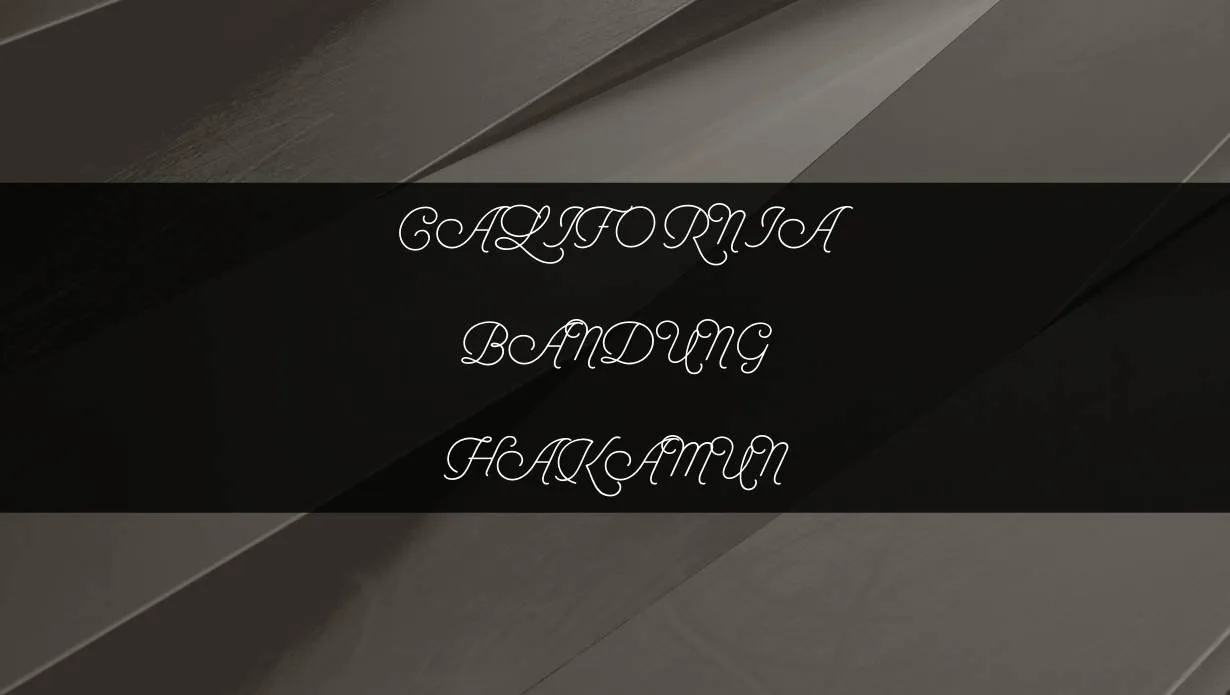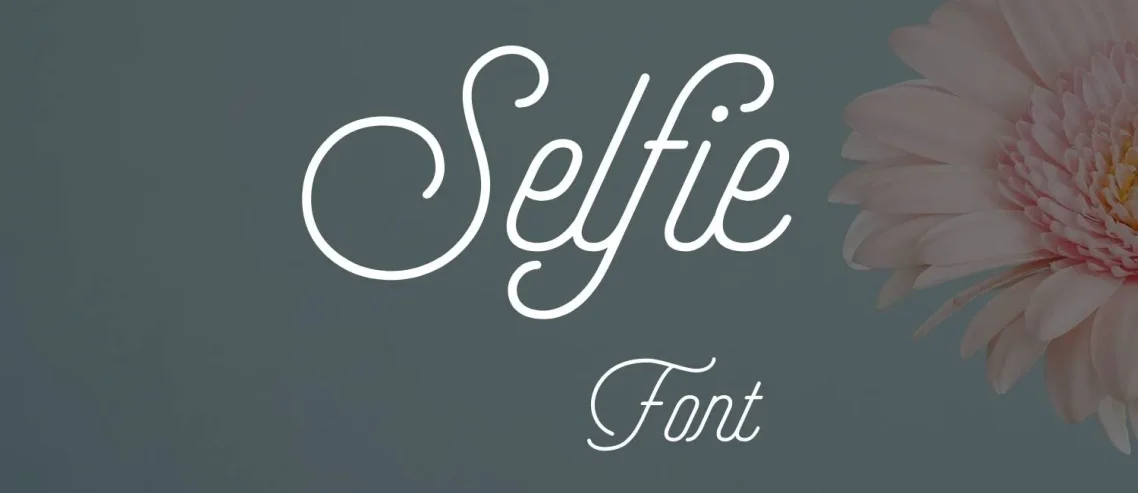
A selfie font is a font created specifically for taking selfies. These fonts are often elaborate, with large letters, intricate designs, and vibrant colors.
The font was created by a team of designers at Instagram, and it includes a variety of features that are specifically designed to make your selfies look more amazing. It is well respected due to its pairing function with another neutral typeface like Candy Font.
Selfie typeface Info
| Name | Selfie Font |
| Designer | Maximiliano Sproviero |
| Style | Calligraphy |